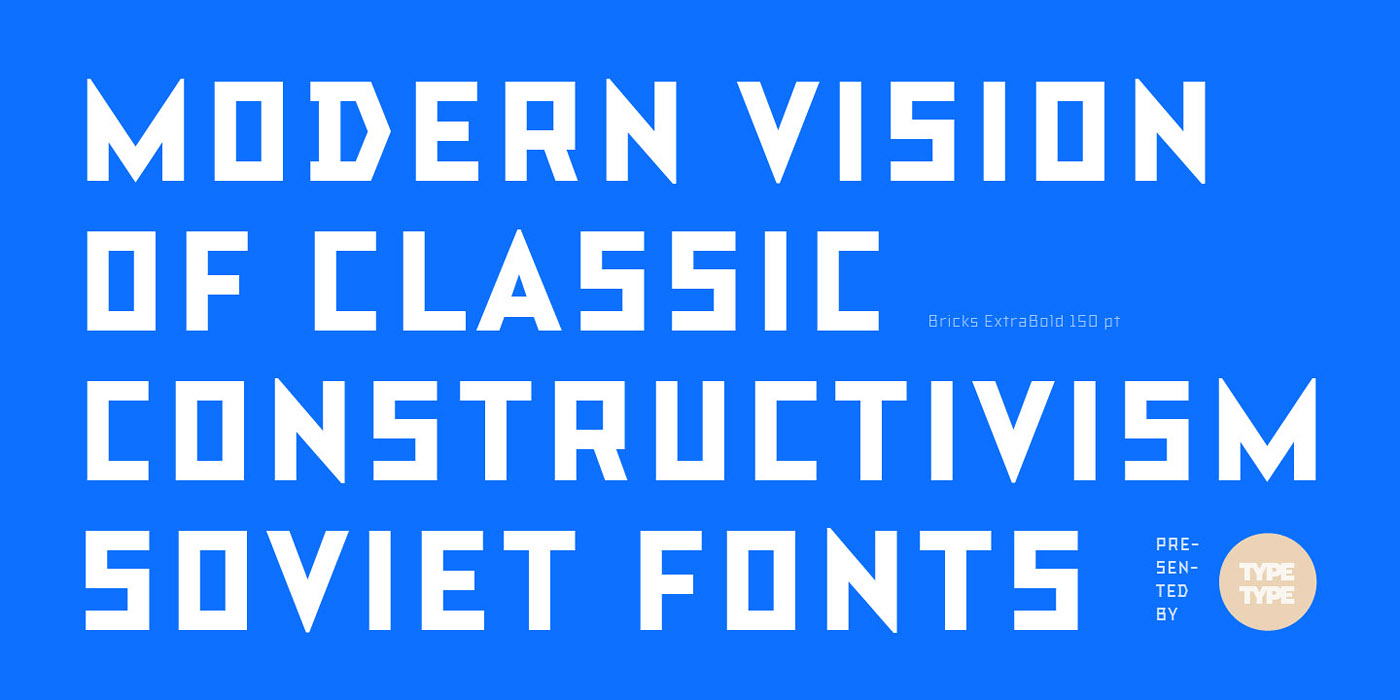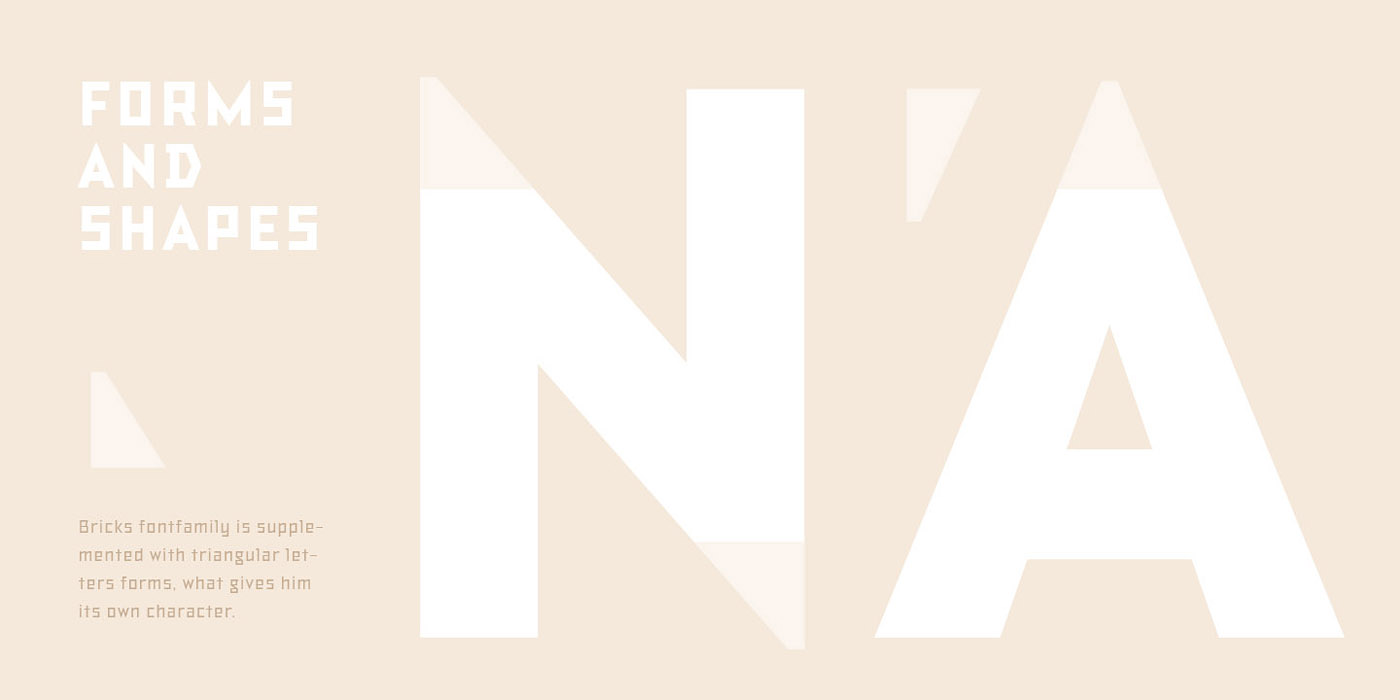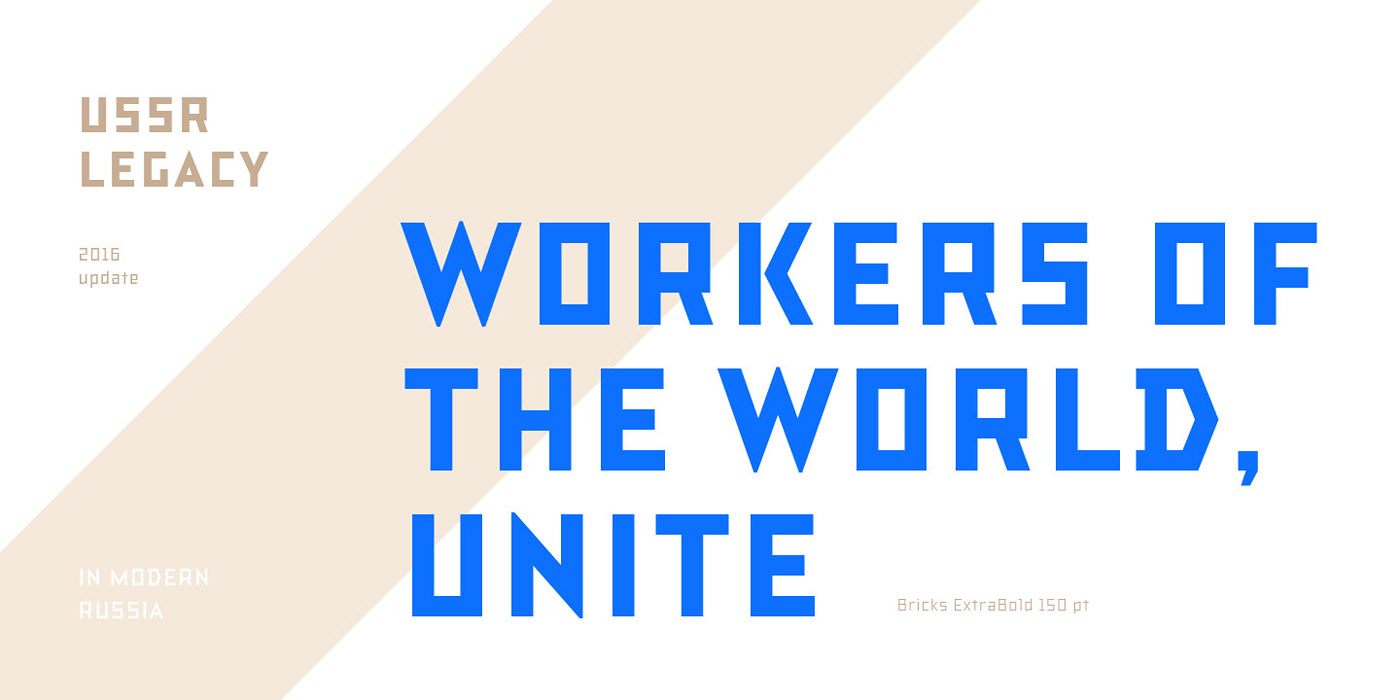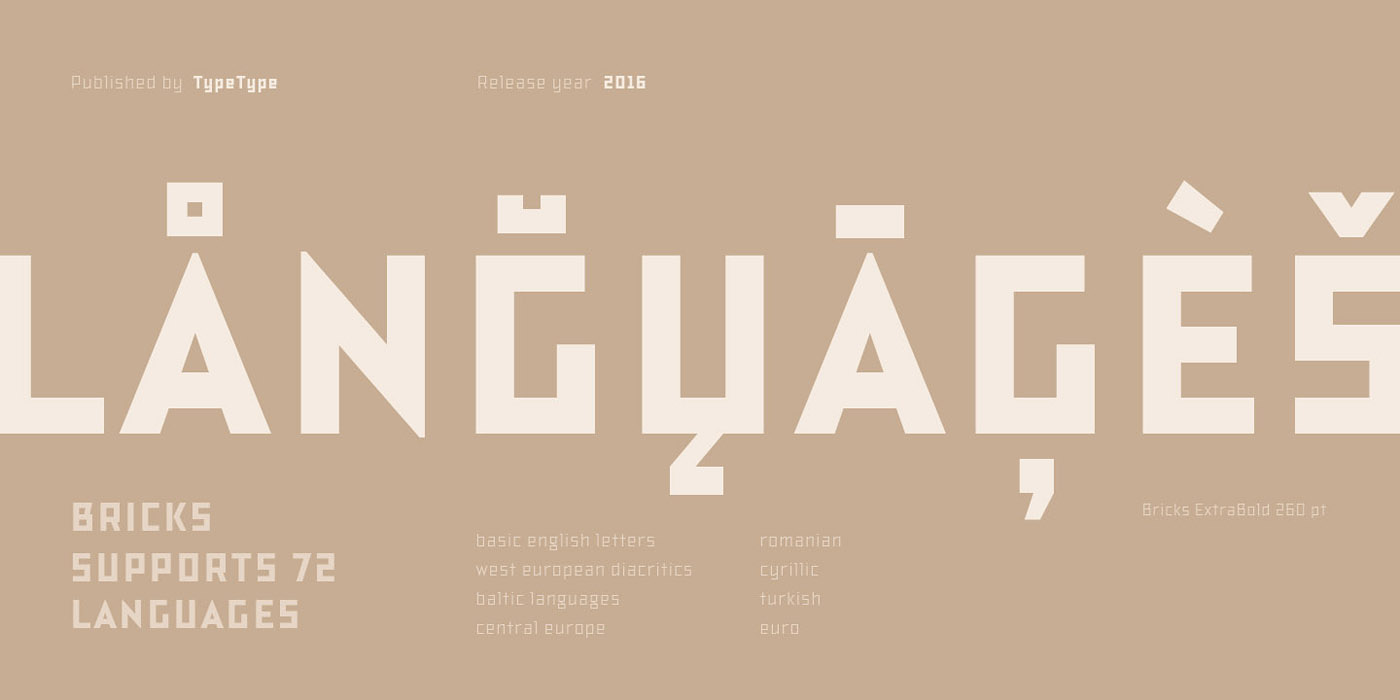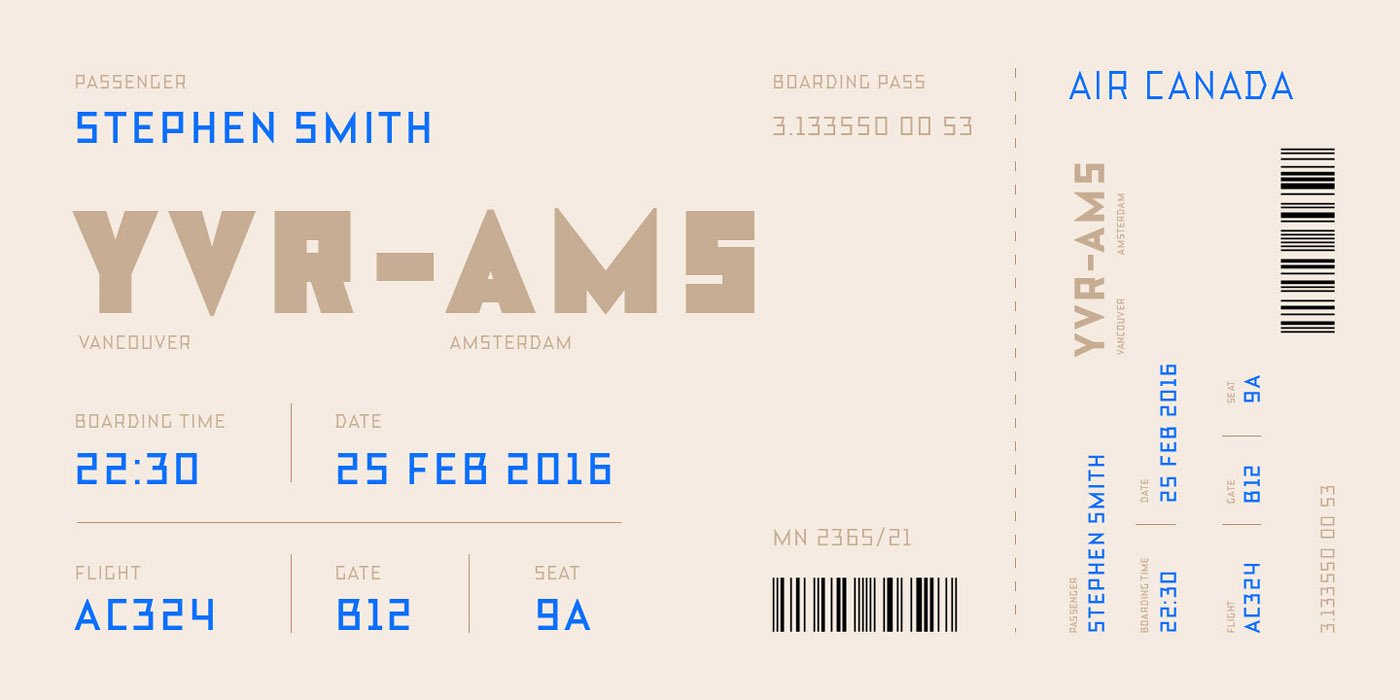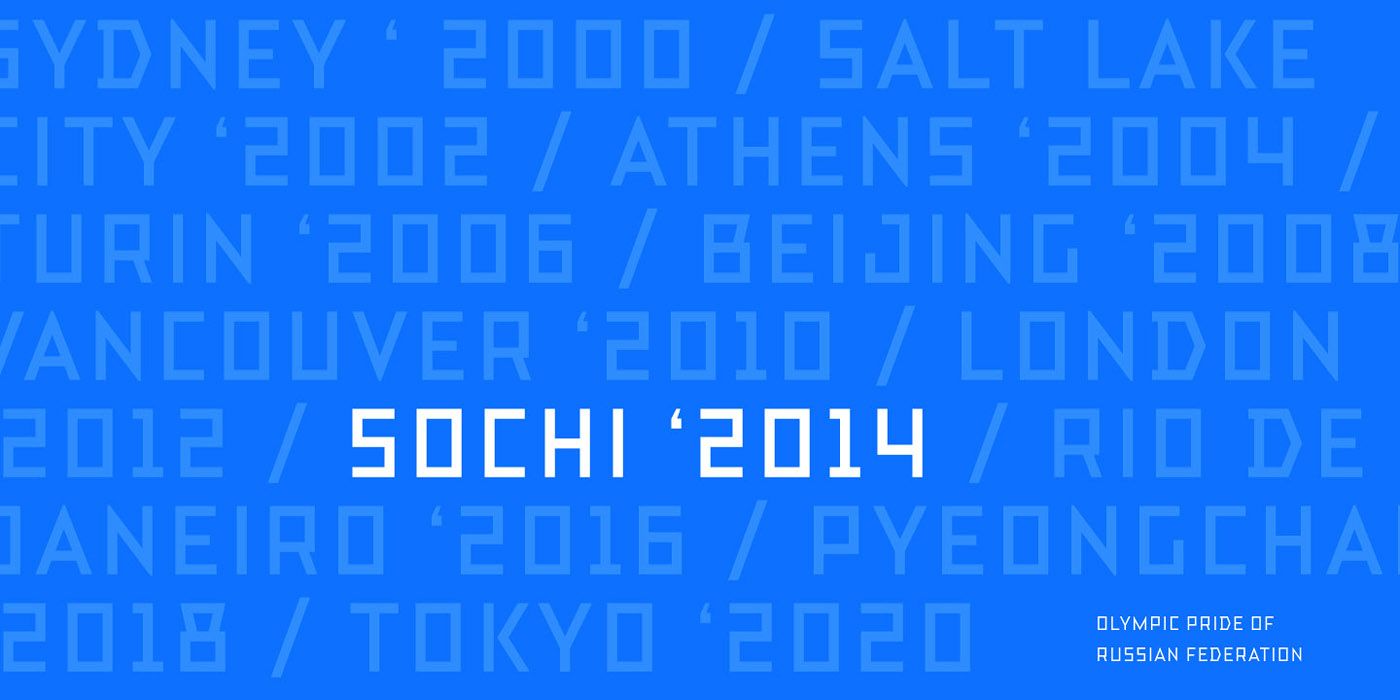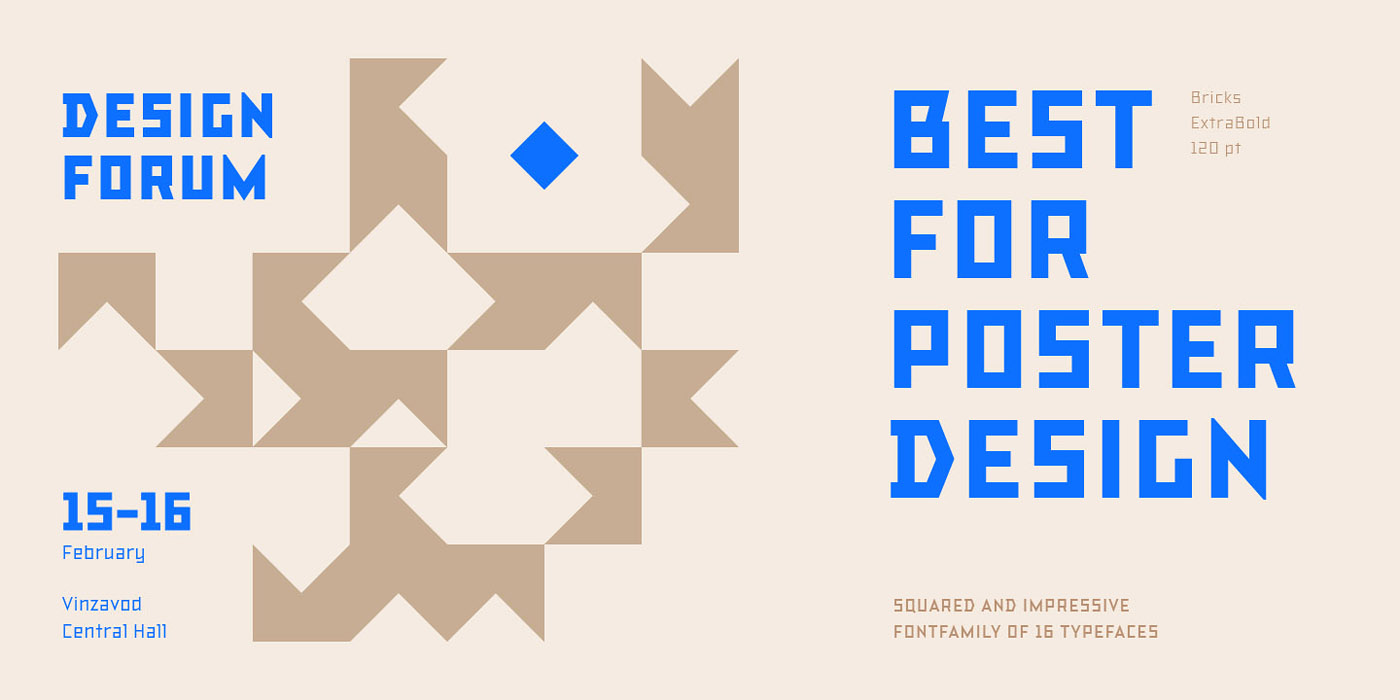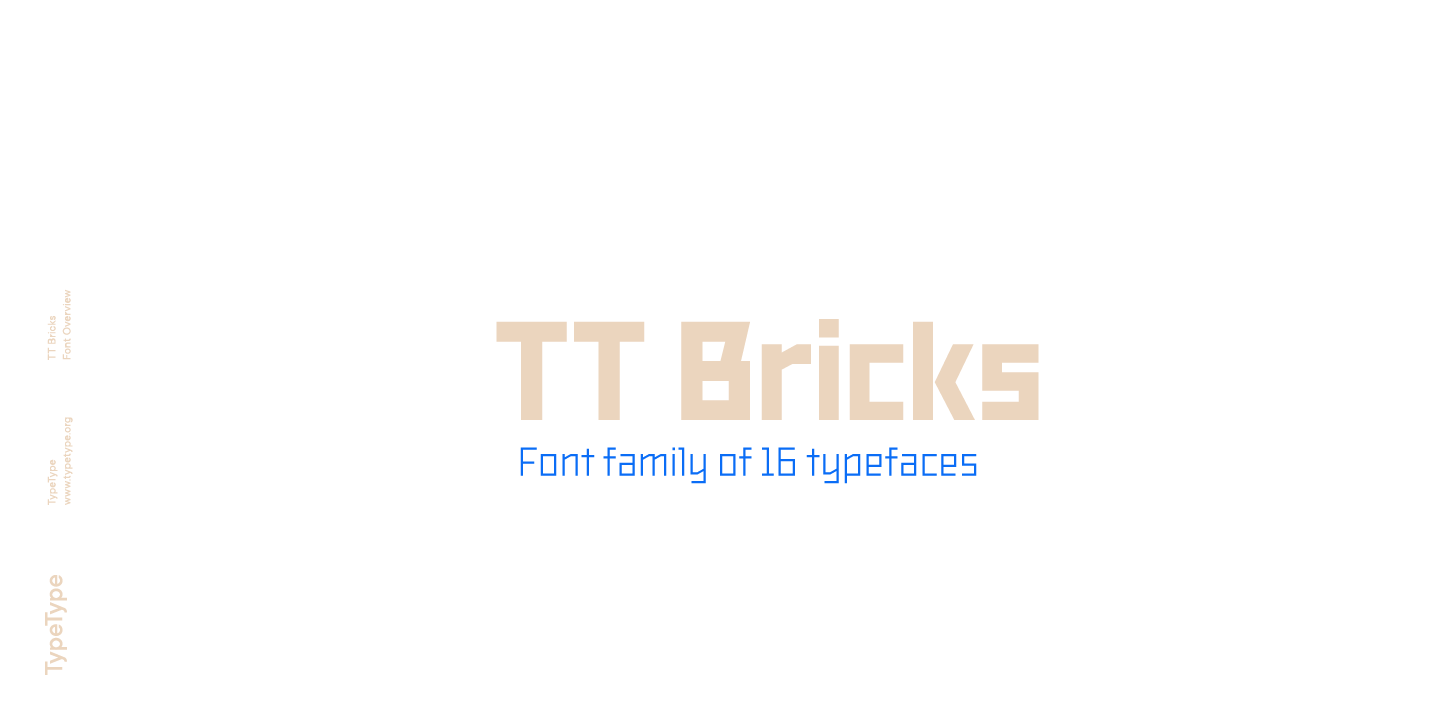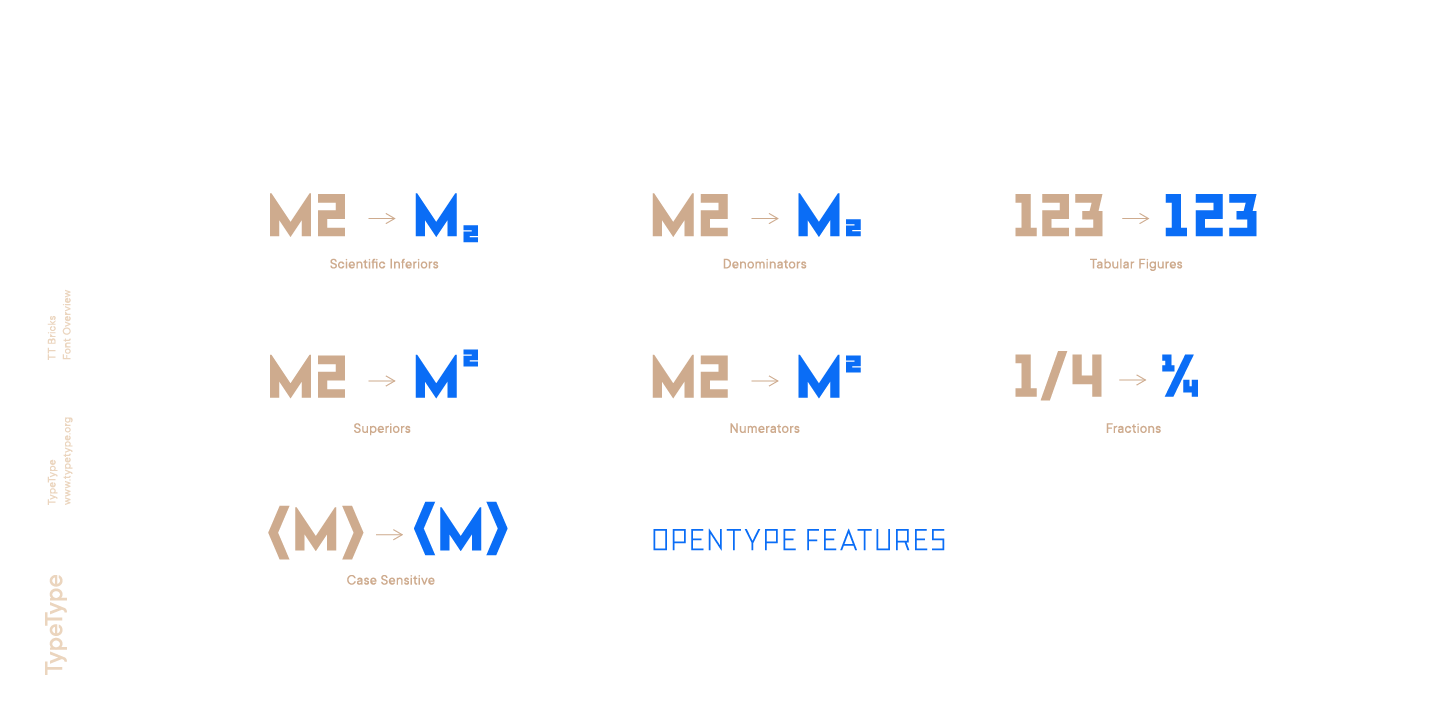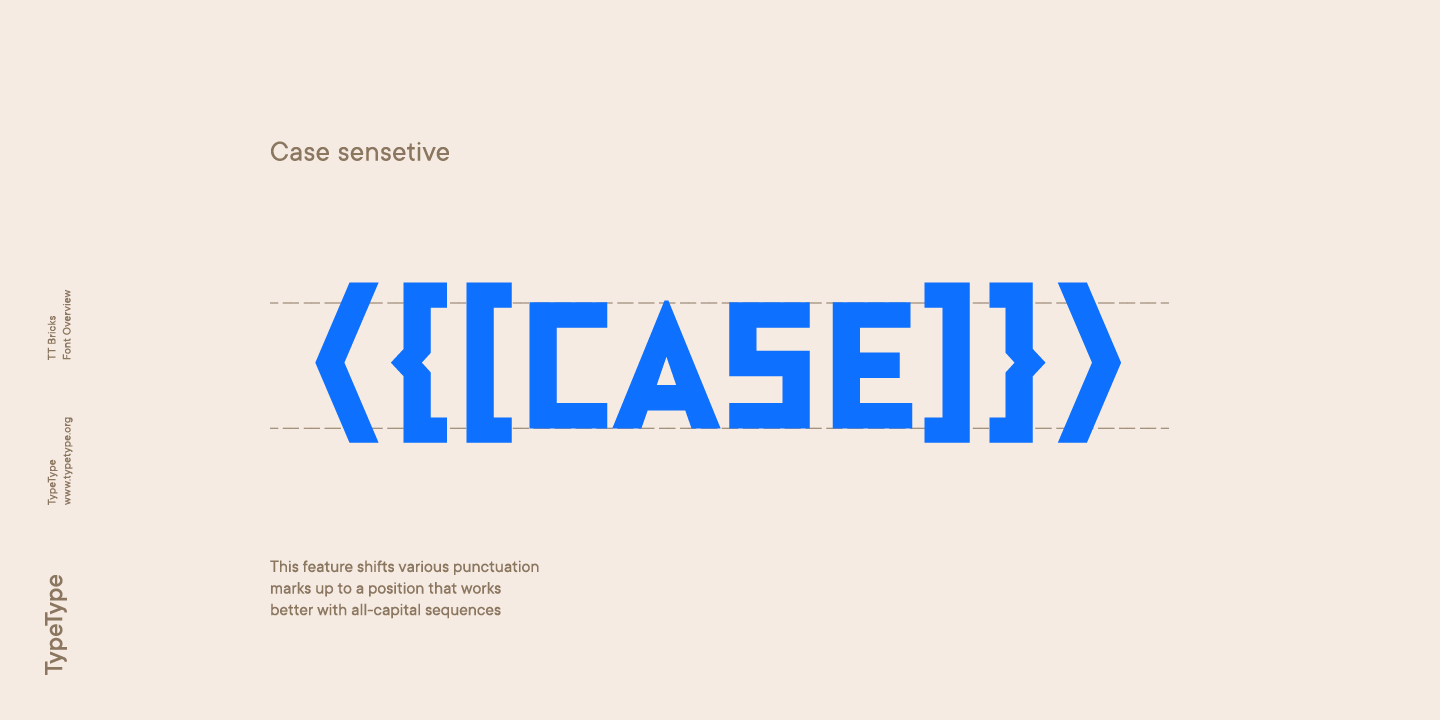
TT Bricks
TT Bricks is a typeface inspired by early Soviet constructivist visual language and design principles.
A very fresh and visually powerful font family
Do you love the early Soviet visual culture as much as we do? We’ve tried going back a hundred years and rethinking the constructivist era. We’ve created an extensive fontfamily that consists of the simplest triangle and rectangle forms. TT Bricks fontfamily includes 16 faces: Hairline, Thin, Light, Regular, Medium, Bold, ExtraBold, Black and Italics.
Thanks to the exaggeratedly simple forms of all signs, TT Bricks looks great in very small type sizes
Perfectly fits the contemporary media landscape
About font family TT Bricks
160+ Language support
Do you love the early Soviet visual culture as much as we do? We’ve tried going back a hundred years and rethinking the constructivist era. We’ve created an extensive fontfamily that consists of the simplest triangle and rectangle forms. TT Bricks fontfamily includes 16 faces: Hairline, Thin, Light, Regular, Medium, Bold, ExtraBold, Black and Italics.
Regardless of its Soviet past, TT Bricks is a very fresh and visually powerful fontfamily that perfectly fits the contemporary media landscape. TT Bricks is perfect for mobile apps and corporate websites, as well as for printed press layout. Thanks to the exaggeratedly simple forms of all signs, TT Bricks looks great in very small type sizes.
Basic Latin Basic Cyrillic Extended Latin Lining Figures, Currencies Punctuation, Symbols, Mathematical Symbols, Arrows
OpenType features
case | Case Sensitive Forms
frac | Fractions
numr | Numerators
dnom | Denomerators